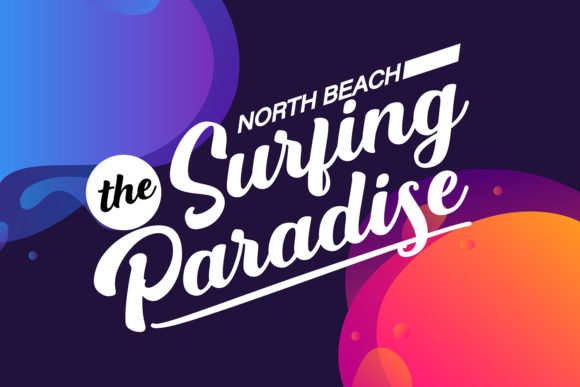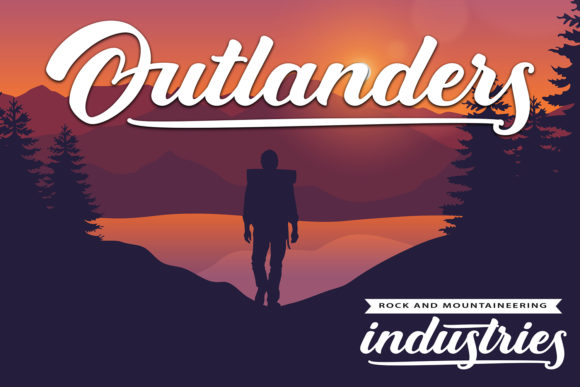
Onboard Font
About Onboard Font
Onboard is a smooth script font that works beautifully with many design projects. Fall in love with its playful look & feel!